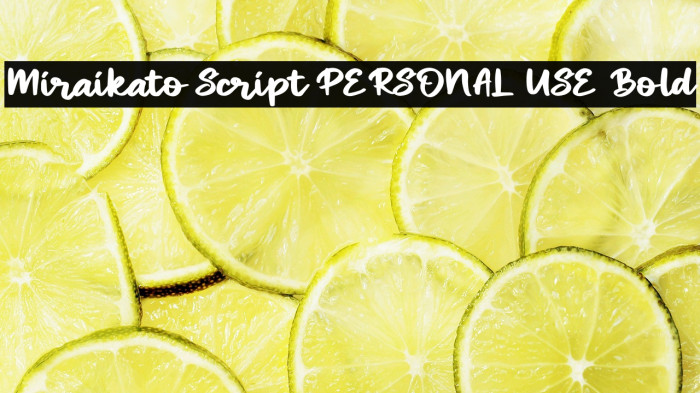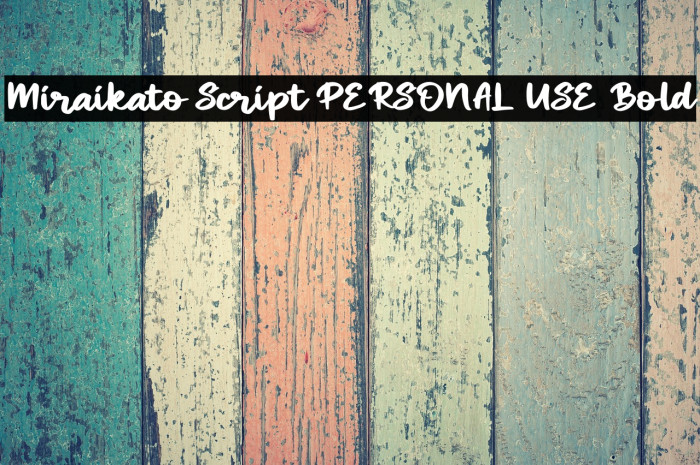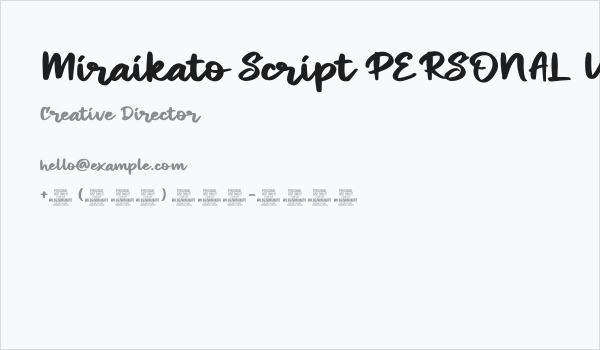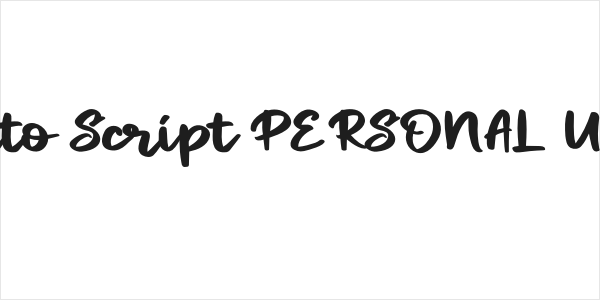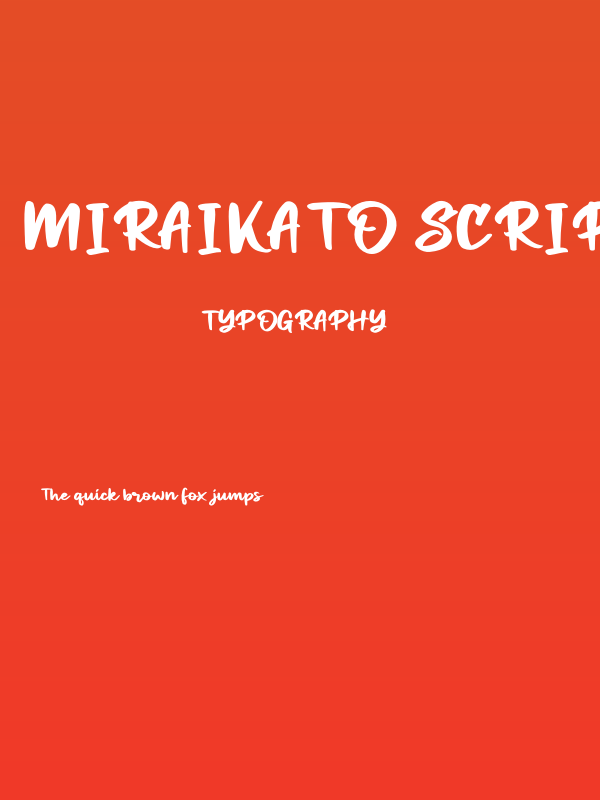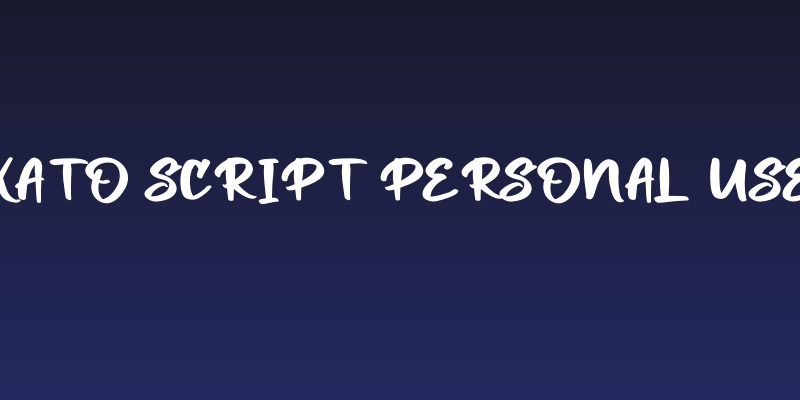
Miraikato Script PERSONAL USE Bold Font
Miraikato Script PERSONAL USE Bold Description
This font features a bold and expressive script style, characterized by its fluid and dynamic strokes. The letters are interconnected, creating a sense of continuity and movement. The uppercase letters are slightly larger and more pronounced, while the lowercase letters maintain a consistent flow. The numbers and special characters are designed to match the overall aesthetic, providing a cohesive look. This font exudes a playful and energetic vibe, making it suitable for creative and informal projects. Its bold nature ensures that it stands out, making it ideal for attention-grabbing designs.
| Proposed Projects | Ideal for branding, invitations, greeting cards, and social media graphics. |